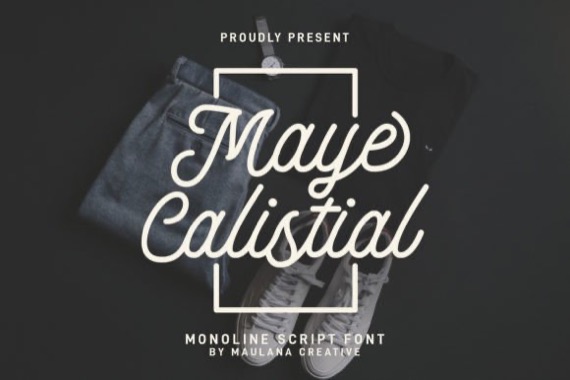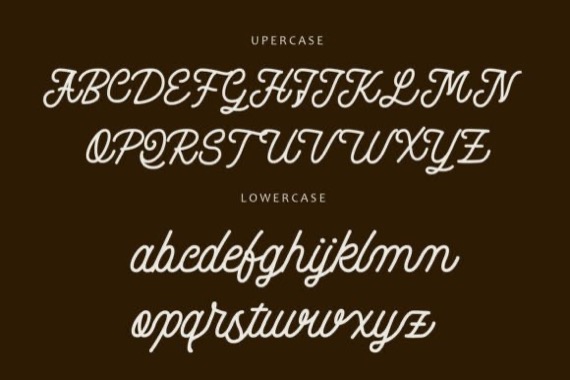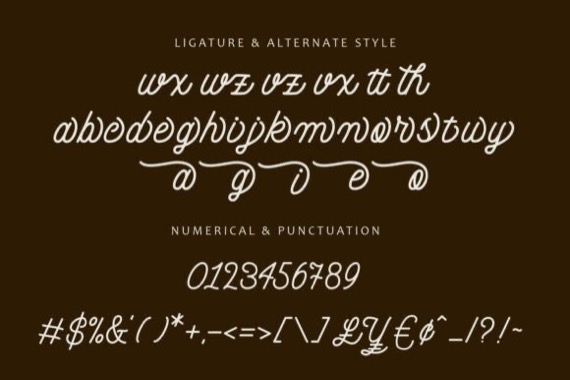
Maye Calistial is a modern and beautiful monoline handwritten script font that was created and shared by Maulana Creative. This font is good for logo design, Social media, Movie Titles, Books Titles, a short text even a long text letter and good for your secondary text font with signature or script typeface. Make a stunning work with this font.
Maye Calistial Monoline Handwritten Font
Designer, Publisher: Maulana Creative